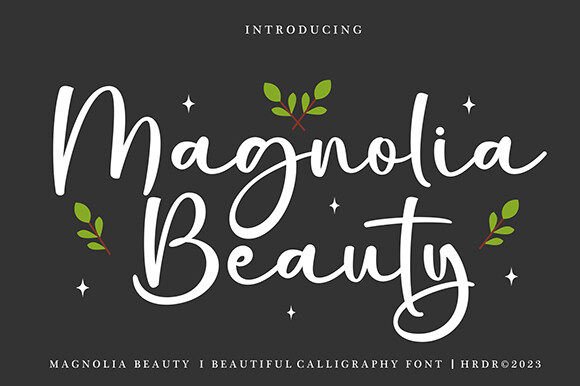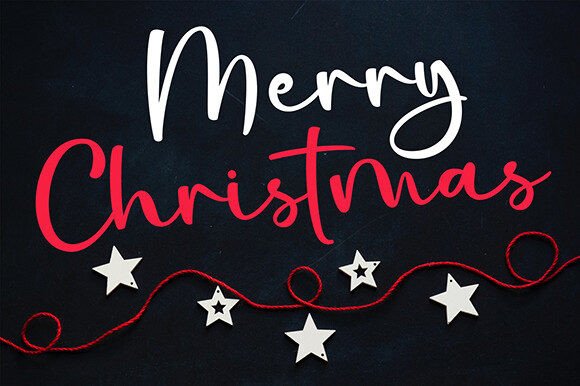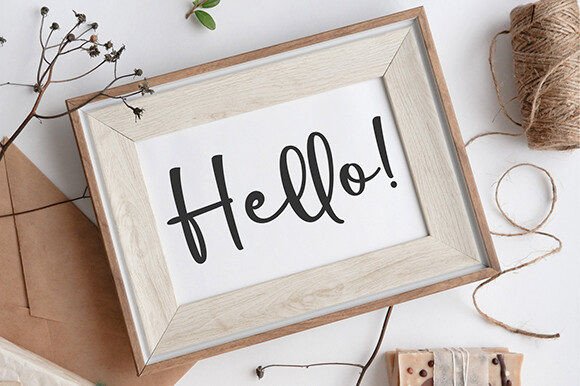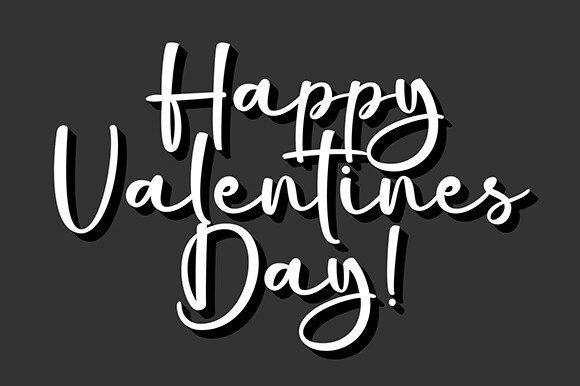
Magnolia Beauty Font
About the Magnolia Beauty Font
Discover the charm of Magnolia Beauty Font. This font is a perfect blend of modern aesthetics and classic appeal. Magnolia Beauty Font is a modern Beauty Calligraphy font.
It’s perfect for branding, wedding invitations, photography, Neon signs, bloggers, logos, greeting cards, logos, Quotes and more.
Magnolia Beauty’s elegant, flowing forms are ideal for headlines, short-form text in branding materials, and projects emphasizing a luxurious or romantic aesthetic. It shines in applications like wedding stationery, logos for beauty brands, and short quotes within social media graphics. However, its calligraphic nature makes it less suitable for body copy or UI elements requiring high readability.
Consider pairing Magnolia Beauty with a clean sans-serif like Lato for a modern contrast, or a classic serif like Garamond for a more traditional feel. For a playful touch, a geometric sans-serif such as Montserrat can provide a striking counterpoint. Avoid pairing it with other highly decorative or script fonts to prevent visual clutter.
The font’s core personality is sophisticated and romantic, conveying a sense of refinement and timeless beauty. It’s best suited for brands aiming to project elegance, luxury, or a classic appeal.
Magnolia Beauty Font Usage Examples
Magnolia Beauty Font Example